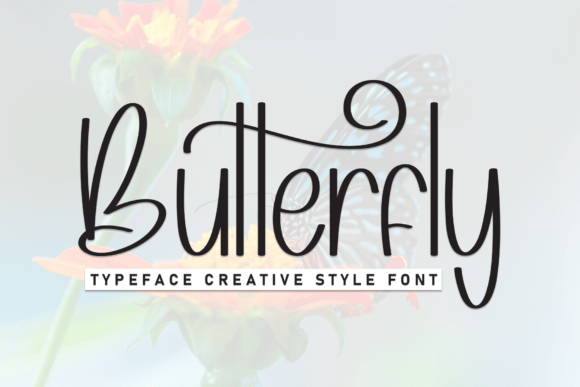
The Magic of Butterfly Font: Elevate Your Designs with a Touch of Whimsy
Have you ever been in the middle of a design project, pouring your heart and soul into every detail, only to hit a roadblock when it comes to choosing the perfect font? I certainly have! It was during one of those moments, working on a wedding invitation design, that I stumbled upon the lovely Butterfly font. Its charming, handcrafted feel instantly captured my heart, and I knew I had to share it with the world.
A Personal Review: What I Love About Butterfly Font
So, what makes Butterfly font so special? Here are a few things that I absolutely adore:
• ✨ Delightful charm: Butterfly font has a unique, whimsical quality that adds a touch of personality to any design.
• ✅ Sophisticated elegance: Despite its playful nature, the font exudes a sense of sophistication, making it perfect for a wide range of design projects.
• 💕 Emotional connection: The font’s warm, inviting feel helps create an emotional connection with your audience, making it ideal for projects that require a personal touch.
While Butterfly font is truly amazing, there are a few minor quirks to be aware of:
• 🤔 Limited multilingual support: Butterfly font may not support as many languages as some other fonts, so be sure to check the character set before using it for a project.
• ⚠️ Occasional kerning issues: As with any font, you may encounter some kerning issues, especially when using it at smaller sizes.
Butterfly font was crafted with love by a talented designer who aimed to create a font that would evoke feelings of warmth, joy, and playfulness. Inspired by the beauty of nature and the charm of handwritten scripts, the designer poured their heart into creating a font that’s both elegant and whimsical.
What is the best use for Butterfly font? Butterfly font is perfect for designs that require a touch of whimsy and playfulness, such as wedding invitations, greeting cards, and other creative projects.
Is Butterfly font suitable for body text? While Butterfly font is beautiful, it’s best suited for display text or headings. For body text, you may want to choose a font with better legibility.